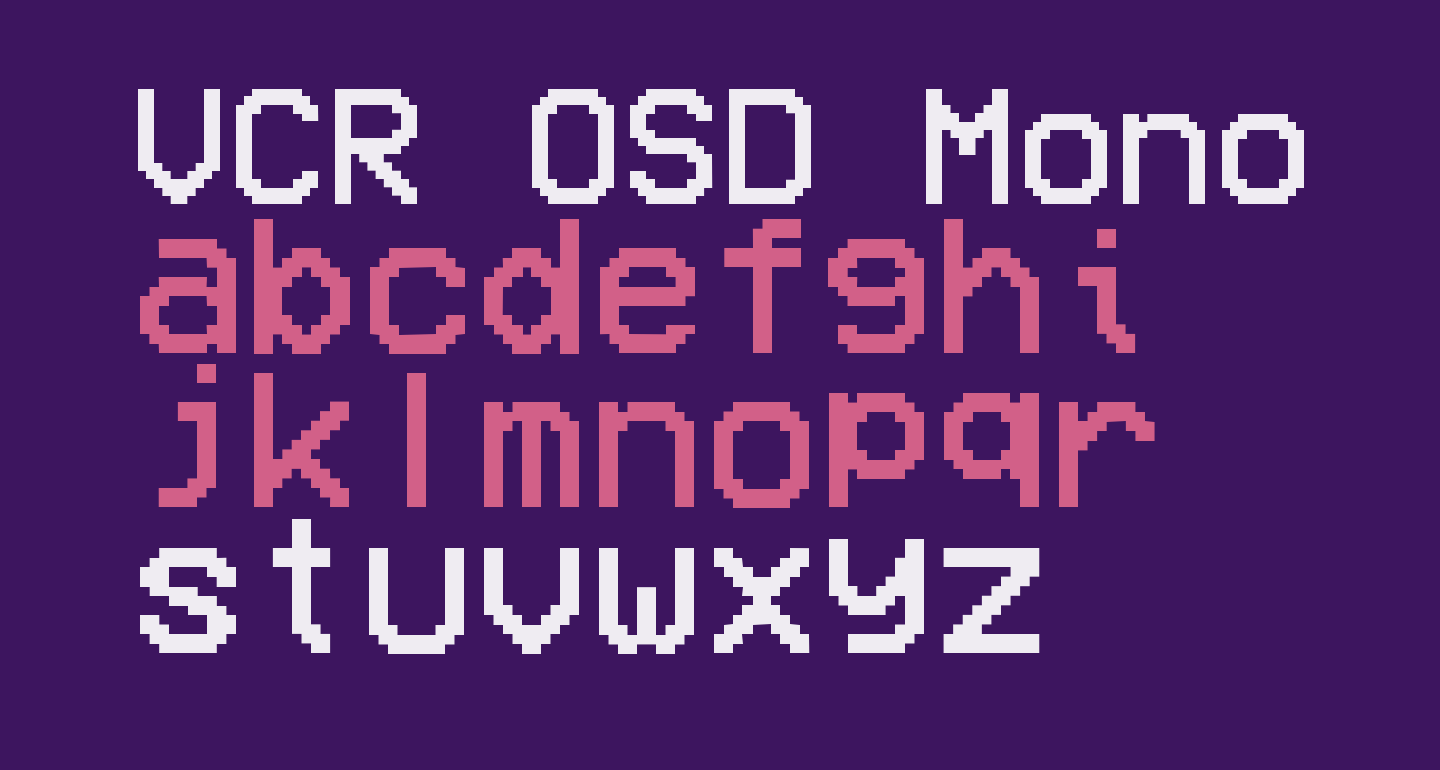
Vcr Osd Mono Font Ttf. Vcr osd mono font came into existence in 2014. Pixel, free for commercial use:
Vcr osd mono is a beautiful pixelated font with a great look and unusual textual appearance. Vcr osd mono came into existence in 2014. This font created by mrmanet.
Vcr osd mono font came into existence in 2014. We are going to presenting you with a new display typeface that is known as vcr osd mono font. Vcr osd mono font free download.